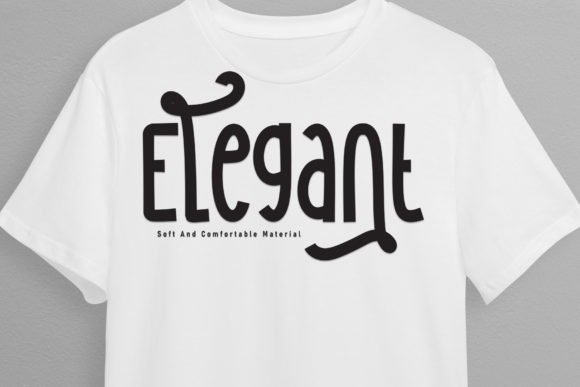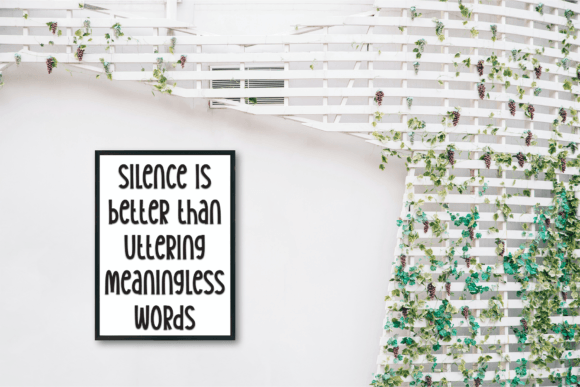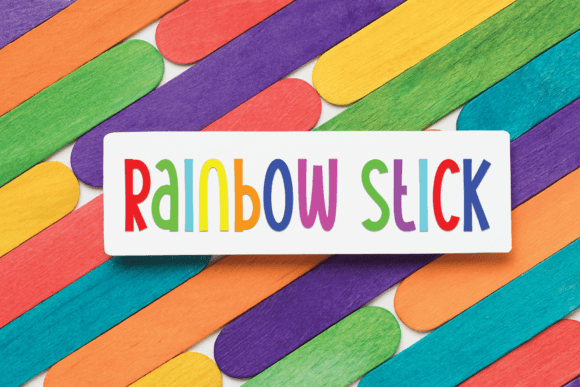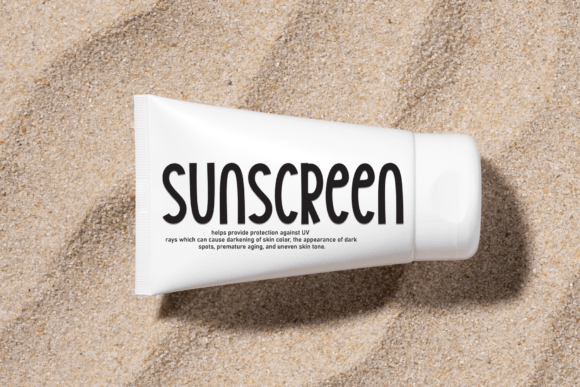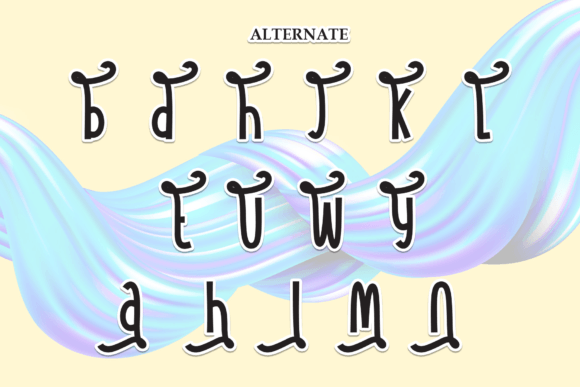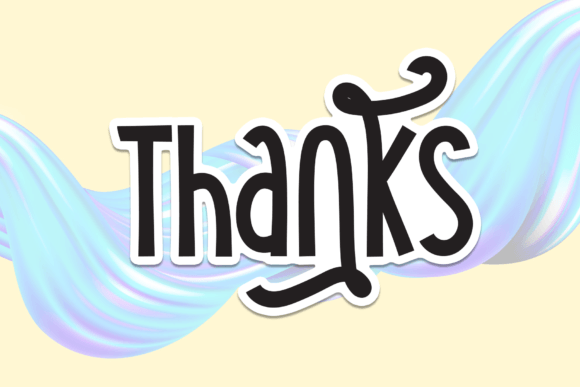
The Perfect Font for a Playful Touch
Have you ever stared at a blank page, feeling stuck and unsure of how to bring your creative vision to life? Maybe you’re designing a wedding invitation, a birthday card, or a social media post that needs a dash of personality. I’ve been there too, and I can tell you that finding the right font can be the game-changer you need to make your design pop.
Enter the Elastic Font, a sweet and friendly handwritten display font that’s perfect for adding a fun touch to your designs. This cute and playful font is designed to bring a smile to your face and a sense of joy to your audience. With the Elastic Font, you can create invitations, cards, and other designs that are truly one-of-a-kind.
As a designer, you know that having the right tools at your disposal can make all the difference in bringing your creative vision to life. That’s why we’re excited to introduce you to the Elastic Font, a valuable addition to any designer’s toolkit.
Elastic Font Key Features
- Unique Variable Font Technology: Elastic Font is a variable font that allows for continuous variation in font characteristics, such as weight, width, and slant, enabling designers to create a wide range of styles and sizes from a single font file.
- Font Metrics and Glyphs: Elastic Font includes a comprehensive set of font metrics and glyphs, ensuring that it can be used for a wide range of typographic applications, from body text to display headings.
- Open-Source and Customizable: Elastic Font is an open-source project, allowing designers and developers to modify and extend its features to suit their specific needs.
Elastic Font Review
I recently had the chance to work with the Elastic Font, and I must say it’s a unique addition to any design project. ✨ One of the standout features of this font is its flexibility – as the name suggests, it can stretch and adapt to any size, making it perfect for headers or titles where you want to create a sense of drama or emphasis. ✨ Another great aspect is its versatility, with a range of styles and weights that can be used to create a consistent look across your design.
However, there are some limitations to consider. ⚠️ For one, the font can look a bit awkward at smaller sizes, and some of the letterforms can appear fuzzy or unclear. ⚠️ Additionally, the font’s elasticity can sometimes make it difficult to read, especially in long blocks of text. ⚠️ Finally, the font’s range of styles and weights can be overwhelming, making it hard to choose the right one for your project.
Overall, I’d say the Elastic Font is a solid choice for designers who want to add a touch of flexibility to their projects. While it’s not perfect, it’s a great option for creating eye-catching headers and titles, and its versatility is a major plus. With a bit of care and attention, you can use this font to create some truly stunning designs.
- Key Takeaways:
- Flexibility and adaptability make it perfect for headers and titles
- Range of styles and weights adds versatility to your design
- Can look awkward at smaller sizes
- Letterforms can appear fuzzy or unclear
- Can be overwhelming to choose the right style or weight
Tips for Getting the Most Out of Elastic Font
Use Elastic Font to create visually appealing and dynamic text effects.
Experiment with different font sizes, colors, and settings to achieve the desired look.
Combine Elastic Font with other design elements to create unique and eye-catching designs.
Elastic Font is ideal for:
Creating dynamic and engaging social media graphics.
Designing eye-catching advertisements and marketing materials.
Adding a touch of personality to presentations and reports.